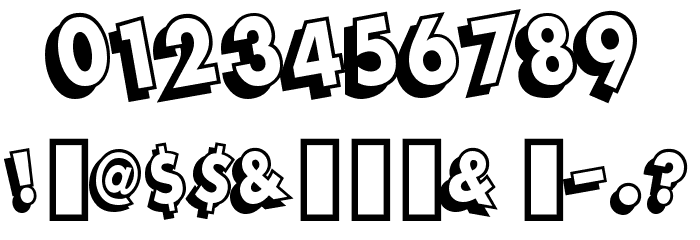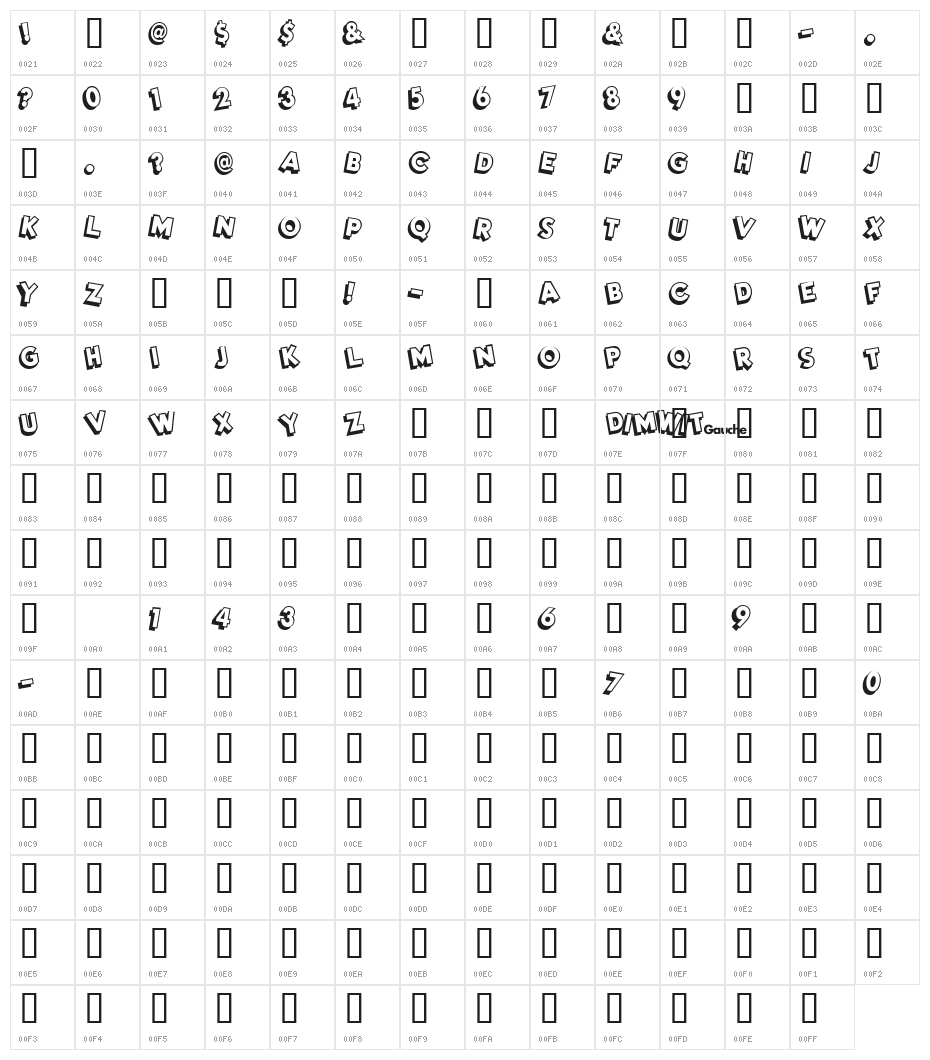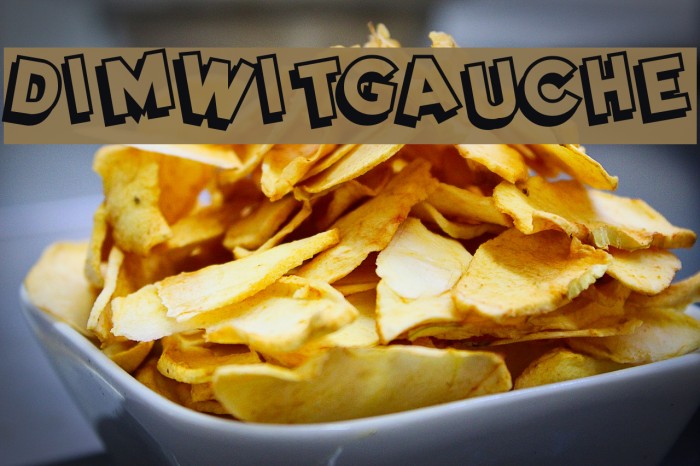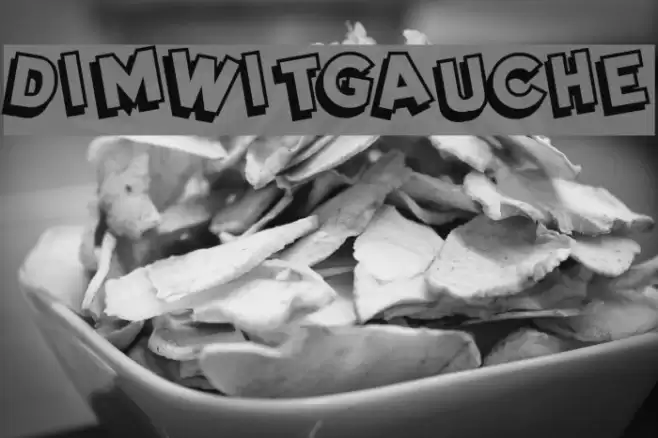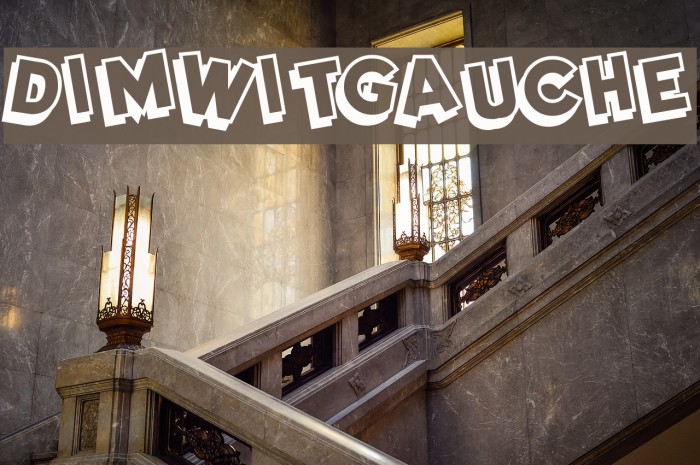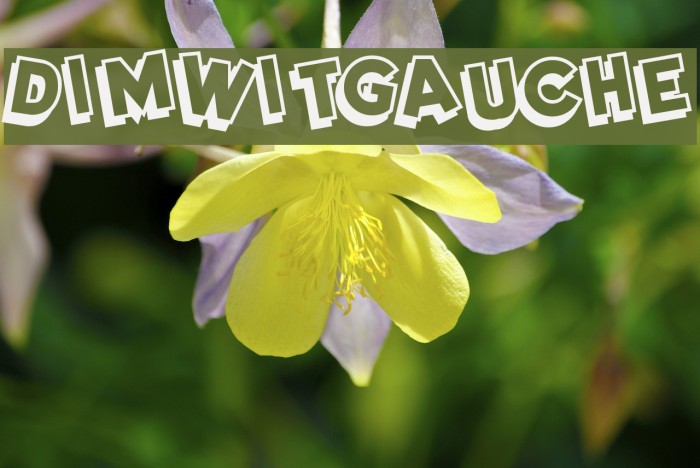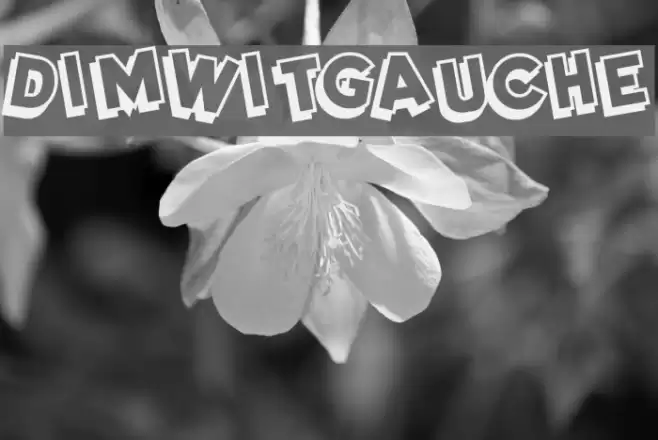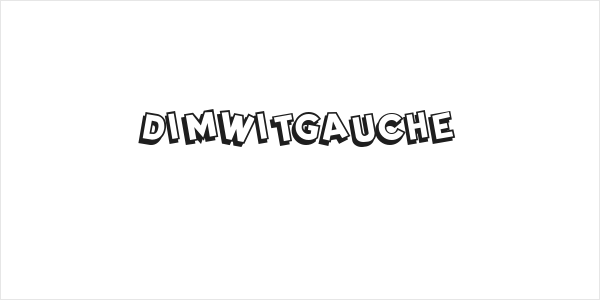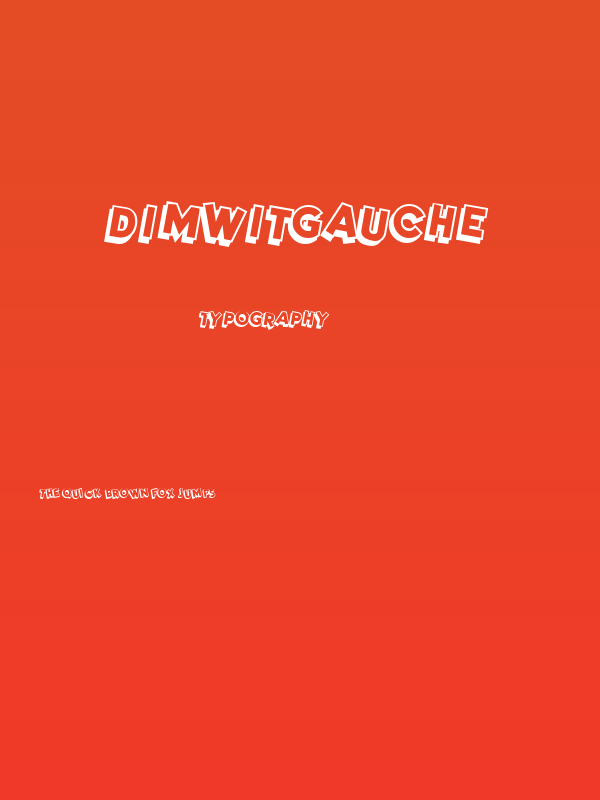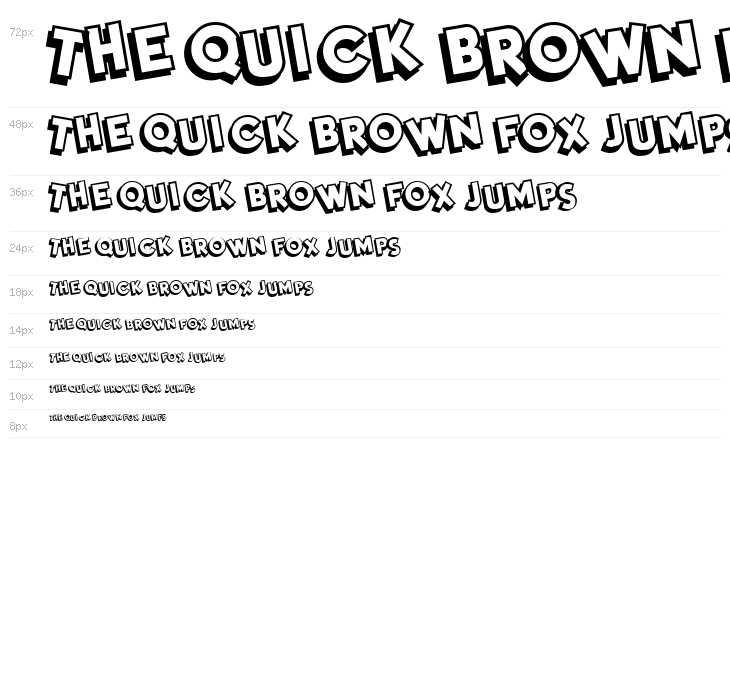
DimWitGauche Font
DimWitGauche Description
This font features a bold, playful design with a three-dimensional effect that gives each character a shadowed appearance. The letters are uppercase and lowercase, with numbers and special characters included. The style is reminiscent of comic book lettering, with thick strokes and a dynamic, energetic feel. The characters are slightly condensed, enhancing the boldness and making them stand out. The font's unique style is ideal for projects that require a fun and engaging visual impact.
| Overall Style | Playful, Comic |
| Proposed Projects | Ideal for comic books, children's books, playful branding, and posters. |